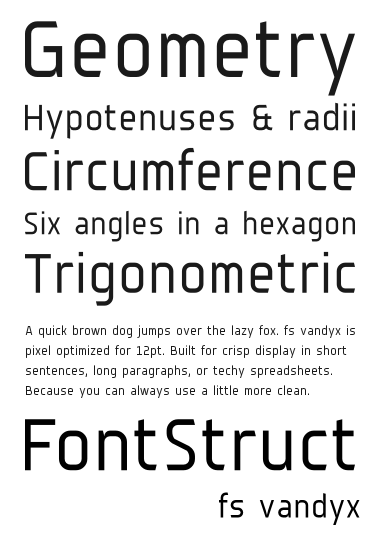
Great clean thoughtful serif! I love your detail specimen. And the details in this typeface to begin with...
Oops, that's sans serif, of course...
Sometimes simplicity is the hardest thing to achieve - well done.
This is so beeping good.
Clean lines, easy to read. Good even for normal text I should think.
There are not many textfaces made on FontStruct, and this is the good one!
Great work. Congratulations. 10/10
Congratulations! FontStruct Staff have deemed your FontStruction worthy of special mention. “fs vandyx” is now a Top Pick.
I'm in love with this pretty one (but the kerning still the problem in FS).
@elmo: Yeah, with FS, kerning is not often perfect, but we can still do it as well as possible. :)
Excellent textface!
how the actual fricc did you make this